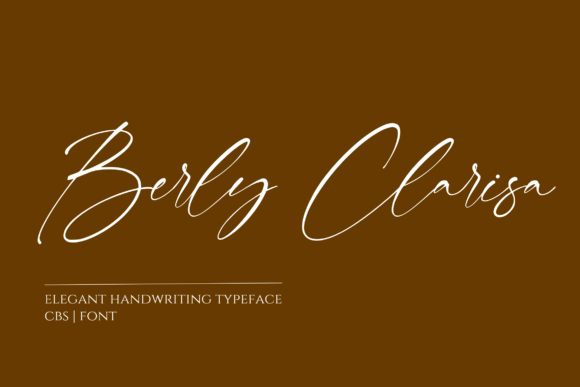
Step into a world of creative expression with Berly Clarisa, a script font that dances with grace and elegance. Designed by Create Big Supply, this modern masterpiece leaves you spellbound with its enchanting flow and chic style. Whether you're a passionate designer or an ambitious entrepreneur, Berly Clarisa is the key to unlocking your branding dreams.
Berly Clarisa isn't just a font; it's an experience. Its smooth curves and delicate strokes evoke a sense of timeless beauty, while its sharp angles add a touch of modernity that sets it apart. It's the perfect harmony of classic and contemporary, inviting you to explore new dimensions of design.
With Berly Clarisa as your creative partner, you can craft logos that radiate sophistication and leave a lasting impression. Its versatility extends beyond logos, making it an ideal choice for invitations, greeting cards, social media posts, and website designs. Imagine your words flowing in perfect unison, captivating audiences with their effortless charm and elegance.
Using Berly Clarisa is like holding a magic wand that transforms ordinary designs into extraordinary masterpieces. It's the secret weapon that elevates your projects, adding a touch of magic that sparks conversations and captures hearts. It's time to redefine your creative vision and embark on a journey of endless possibilities with Berly Clarisa.